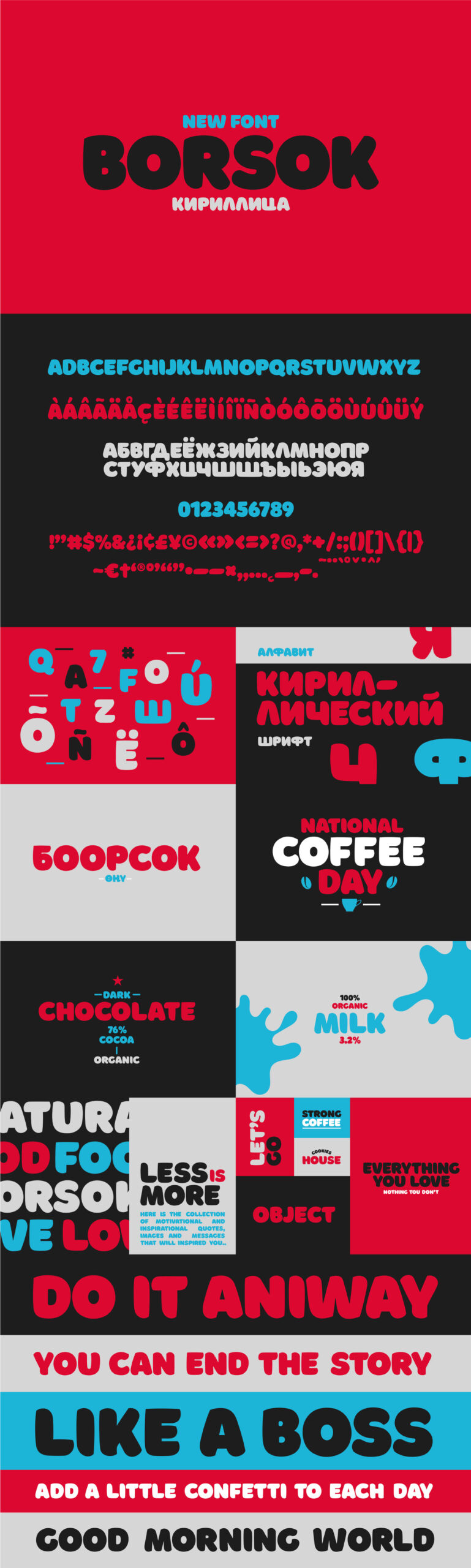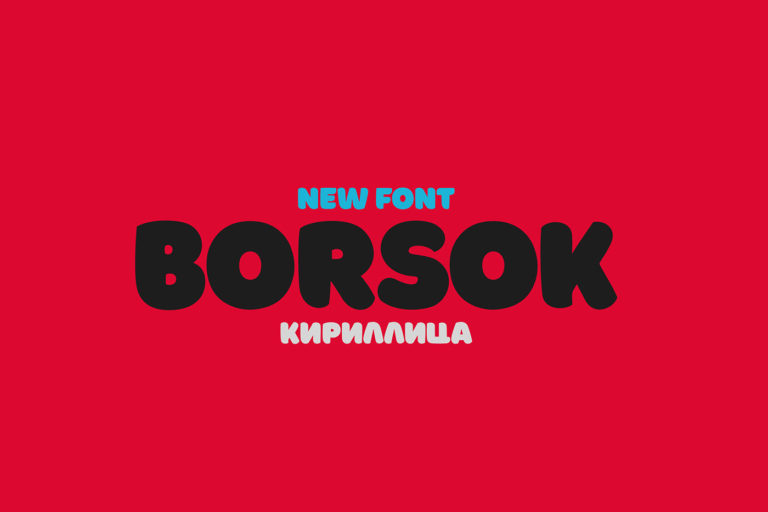
Borsok, from Dastan Miraj, is a bold & smooth display font with multilingual support. It is perfect for branding, apparel design, product packaging, stylish text, quotes, greeting cards, posters and much more. It includes uppercase & lowercase characters, numerals, punctuation & symbols. Free for personal and commercial use!